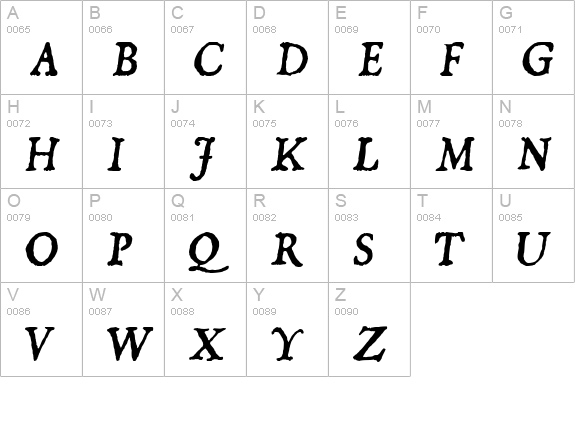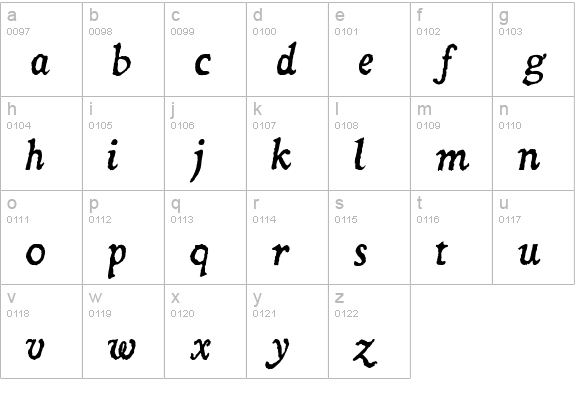
Dominican Italic Font Details
Dominican Italic is a distinctive, italic variant in the Dominican typeface family \xE2\x80\x94 well suited to design and typography projects.
The Dominican Italic font is a stylish and elegant typeface that exudes sophistication and charm. Its slanted style adds a touch of flair to any design project, making it perfect for headlines, invitations, branding, and more. The graceful curves and flowing lines of Dominican Italic give it a unique and timeless appeal that is sure to make your text stand out. Best of all, this beautiful font is available for free download at FontsMarket.com. Whether you're a designer looking for a versatile typeface or someone looking to add a touch of class to your projects, Dominican Italic is the perfect choice. Download it today and elevate your designs with this exquisite font.